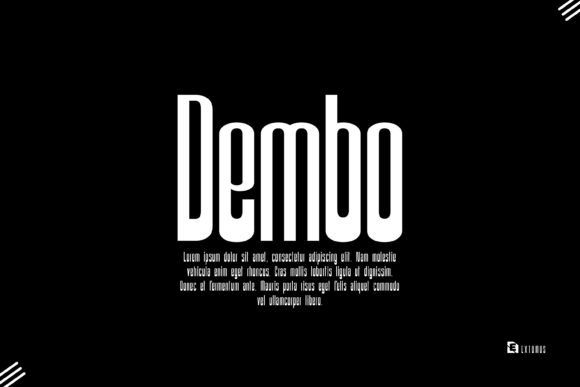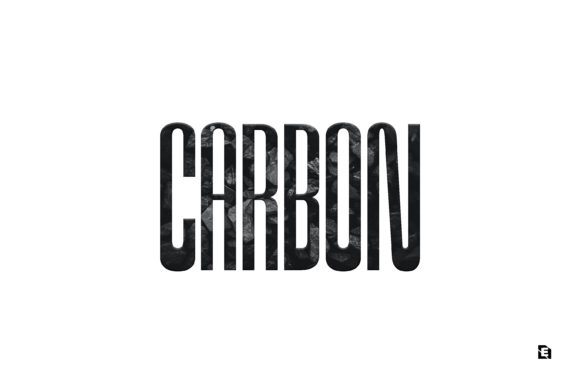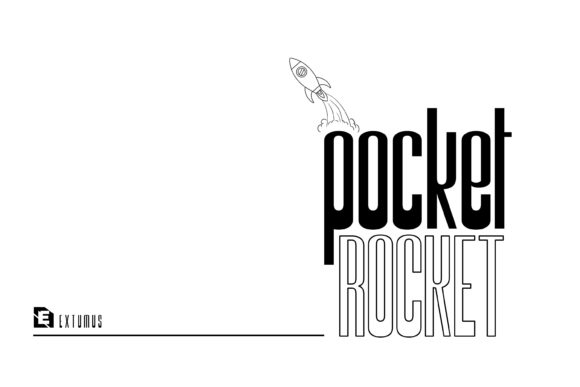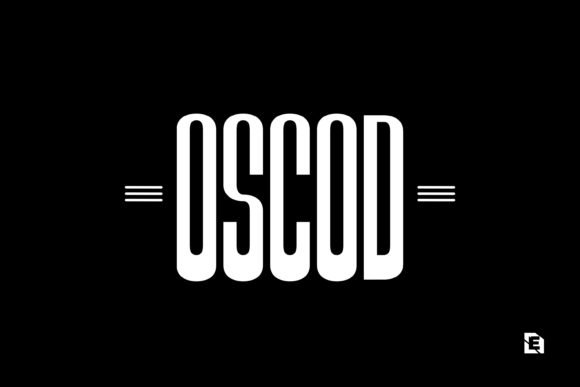
Introduction to Oscod Font
Oscod is a unique and modern display typeface perfect for headlines, big text, branding, logotypes & display usage.
This font is the perfect choice for outstanding logos, promotional content, and marketing graphics You can also use it for creating unique monograms, logos, and identities with these combinations.
Oscod Font offers exceptional quality and versatility, making it a valuable addition to your design toolkit. Whether you’re creating for personal projects or commercial use, Oscod Font delivers professional results.